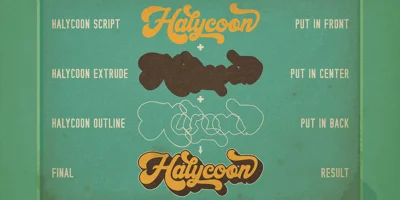
Halycoon Script
Halycoon Script Font
The Halycoon Script Font is excellent for romantic wedding invitations, peaceful spa branding, meditation center materials, serene nature retreat promotions, mindfulness blog headers, tranquil boutique hotels, wellness product packaging, and calming therapy practice signage. This graceful typeface works beautifully in applications where serenity and gentle elegance need to be emphasized, making it perfect for brands that want to communicate inner peace, harmony, and soothing tranquility through flowing script typography.
What makes Halycoon Script Font exciting is its serene flowing elegance and peaceful character that evokes feelings of calm tranquility and gentle sophistication. The font's smooth curves and harmonious letterforms create an atmosphere of inner peace and spiritual balance, making it ideal for wellness brands that want to convey healing, relaxation, and emotional well-being. Its gentle script design reflects the soothing qualities found in peaceful moments and mindful experiences.
The Halycoon Script Font family typically includes regular and bold script variations, often featuring peaceful flourishes, gentle connecting ligatures, and serene decorative elements that enhance its calming appeal. Many versions include wellness symbols, mindfulness ornaments, and specialized characters that provide designers with comprehensive tools for creating tranquil design projects with authentic peaceful energy and harmonious visual flow.
For designers working on projects that require peaceful sophistication and wellness authenticity, Halycoon Script Font provides exceptional calming elegance. Its ability to instantly communicate serenity and gentle healing makes it an invaluable choice for wellness brands, spiritual organizations, and any project requiring typography that embodies the soothing power of tranquility, the beauty of mindful living, and the gentle grace of peaceful script calligraphy.